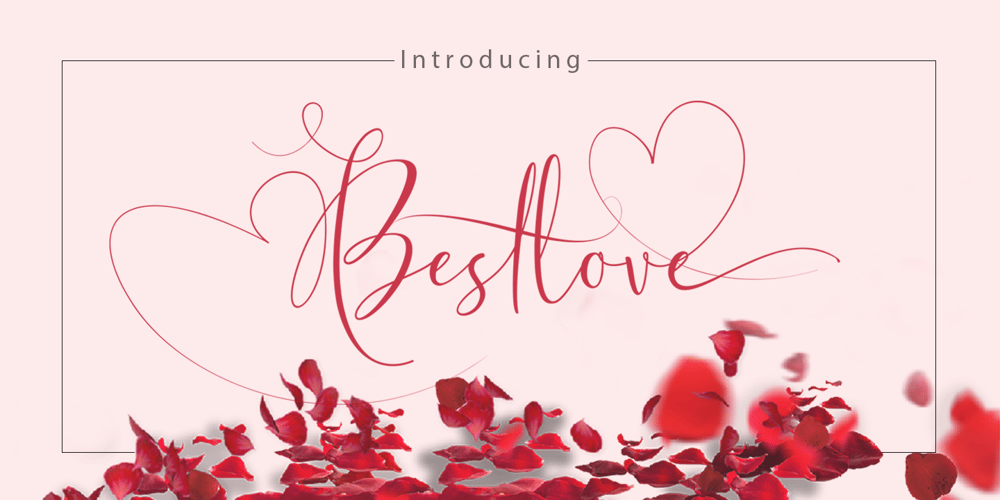
Best Love Font Family was designed by Nasrullah and published by Sulthan Studio. Best Love contains 1 styles and family package options. Best Love is a modern handwriting font with sophisticated grooves. It’s full of hearts and glyphs :). This is perfect for branding, wedding invitations and cards.The font has smooth texture, so would be perfect for all types of printing techniques. You can do embroidery, laser cut, gold foil and more.Best Love includes a full set of upper and lower case letters, multi-lingual symbols, numbers, punctuation, swashes and ligatures.To use the beautiful swashes, you need a program that supports OpenType features such as Adobe Illustrator CS, Adobe Photoshop CC, Adobe Indesign and Corel Draw.Photoshop has a glyph panel where you can find alternatives and ties Select the font and go to Window Glyphs and double click on the glyph you want to use. To open from Illustrator, please, follow: Window – Types – Glyphs.Thank you for looking at my product hope you like it, if you have any further question please feel free to contact me back via email.